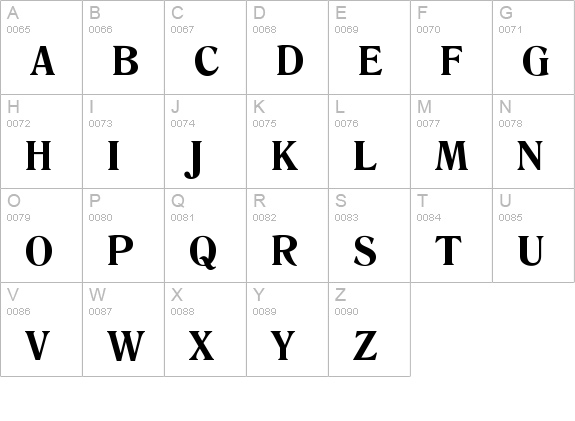
Romana Bold is a strong, high-contrast variant in the Romana typeface family \xE2\x80\x94 well suited to headlines, attention-grabbing titles, and strong calls-to-action.
Romana Bold font is a stylish and elegant typeface that exudes sophistication and charm. With its strong, bold strokes and classic design, Romana Bold is the perfect choice for creating eye-catching headlines, titles, and branding materials. This versatile font can be used in a variety of design projects, from logos to posters to packaging. What makes Romana Bold even more appealing is that it is available for free download at FontsMarket.com. This means you can easily access this high-quality font and use it in your projects without any cost. Don't miss out on the opportunity to add Romana Bold to your font collection and elevate your designs with its timeless appeal. Download Romana Bold today and unleash your creativity!